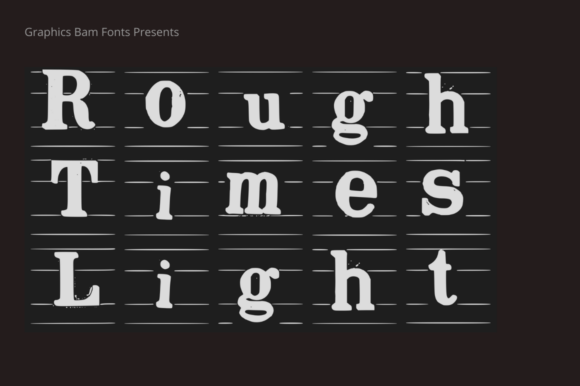
Rough Times Light: A Bold Font for Creative Expression
If you're looking for a font that adds character and depth to your design work, Rough Times Light might be exactly what you need. This textured display font is more than just a visual element—it's a tool that can elevate the impact of your projects across various platforms.
What Makes Rough Times Light Unique
Rough Times Light stands out because of its distinct texture and visual weight. Unlike clean, minimalist fonts, this one brings a sense of ruggedness and authenticity. It’s ideal for designs that aim to convey strength, resilience, or a handmade feel. The font’s irregular edges and rough outlines give it a raw, unpolished look that can make any text stand out.
Whether you're working on a logo, a poster, or a social media graphic, Rough Times Light offers a way to break away from the standard typography and create something memorable. Its versatility allows it to fit into both modern and vintage aesthetics, making it a go-to choice for designers who want to add a unique touch to their work.
Real-World Applications of Rough Times Light
One of the most common uses for Rough Times Light is in product packaging. Brands that want to communicate a sense of authenticity or craftsmanship often use this font to draw attention to their products. For example, a small-batch coffee company might use it on their packaging to emphasize the handcrafted nature of their beans. The font’s texture complements the organic feel of the product, creating a cohesive visual identity.
In branding projects, Rough Times Light can help establish a strong brand presence. Companies that want to project confidence and individuality may choose this font for their logos or taglines. It works well with bold color schemes and can add a layer of visual interest that makes the brand more recognizable. Whether it's a tech startup or a boutique clothing line, the font can be adapted to suit different industries.
Magazine covers also benefit from the use of Rough Times Light. Designers often use it to highlight headlines or key phrases, drawing readers' eyes to the most important information. The font’s texture adds a tactile quality that can make the cover more engaging, especially when paired with high-quality images or contrasting colors.
When to Use Rough Times Light in Social Media
Social media platforms are all about grabbing attention quickly. Rough Times Light can be an effective tool for creating eye-catching posts, especially when used in captions, headers, or promotional graphics. Its bold appearance helps text stand out in a crowded feed, making it easier for audiences to engage with the content.
For instance, a fitness influencer might use the font in a post about overcoming challenges, reinforcing the message with a visual that mirrors the theme. Similarly, a travel blogger could use it in a caption about exploring new places, adding a sense of adventure and spontaneity to the message.
Wedding and Event Design
Rough Times Light is also popular in wedding and event design. Couples who want a unique and personalized touch on their invitations or signage might choose this font to add a distinctive flair. It can work well with rustic or industrial themes, giving the overall design a more authentic and handcrafted feel.
Event planners might use it for signage at weddings, conferences, or art shows. Its readability is maintained even at smaller sizes, making it suitable for things like menus, schedules, or directional signs. The font’s texture can also complement other design elements, such as wood textures or metal accents, creating a cohesive look.
Considerations Before Using Rough Times Light
While Rough Times Light is visually striking, it's important to consider how it will work in different contexts. For example, it may not be the best choice for long blocks of text, as its texture can make reading difficult. It’s best suited for short phrases, headlines, or decorative elements where visual impact is more important than readability.
Designers should also think about the overall style of their project. If the rest of the design is clean and modern, using a textured font like Rough Times Light could create a nice contrast. However, if the design is already busy or complex, the font might overwhelm the composition.
Another consideration is the platform where the font will be used. Some digital platforms or print materials may have limitations on font styles, so it's wise to test the font in different formats before finalizing a design. This ensures that the intended effect is achieved without technical issues.
Who Benefits from Using Rough Times Light
Graphic designers, marketers, and creative professionals are the primary users of Rough Times Light. They appreciate its ability to add personality and uniqueness to their work. For these individuals, the font is a valuable asset that helps them stand out in a competitive field.